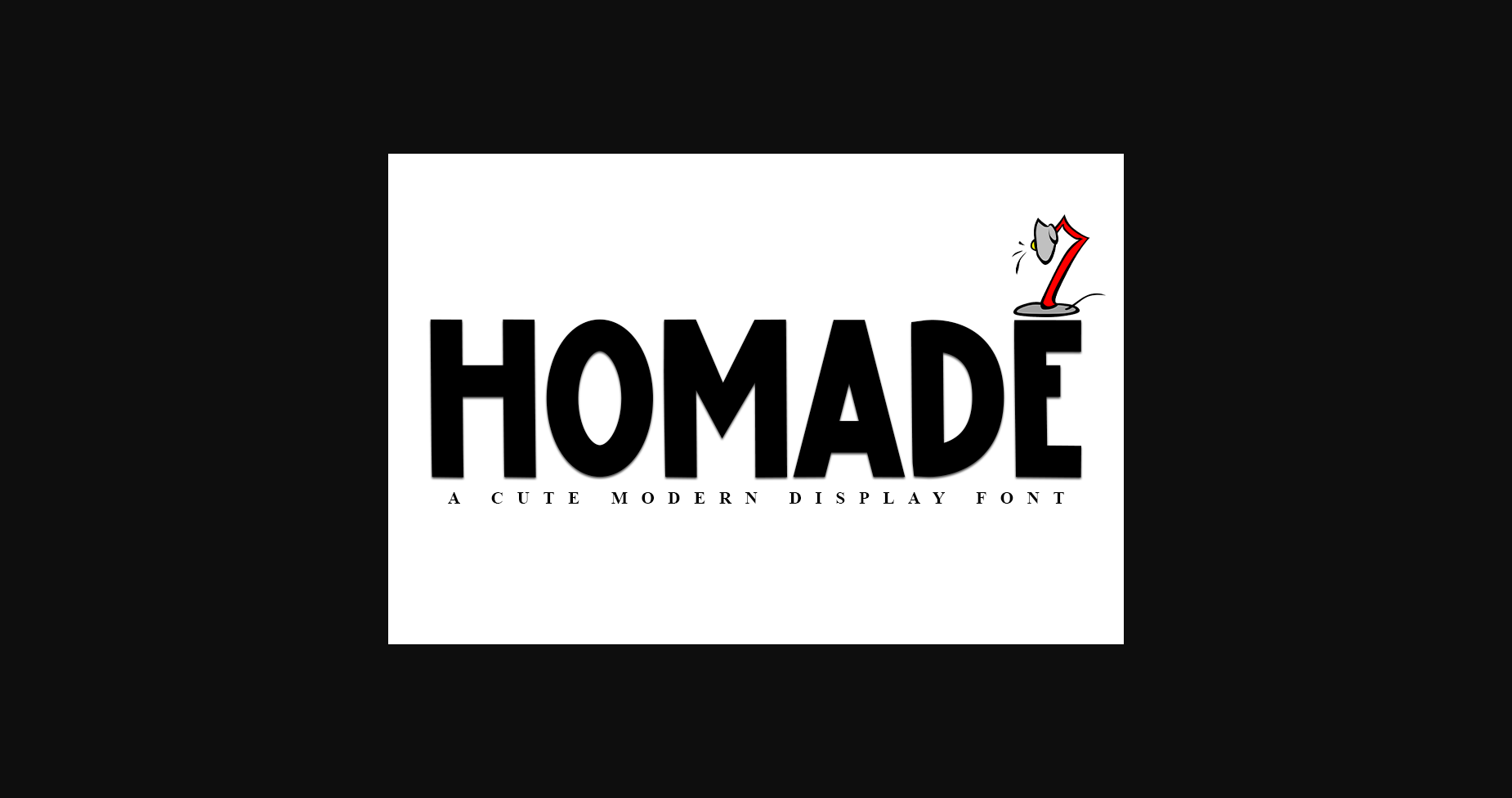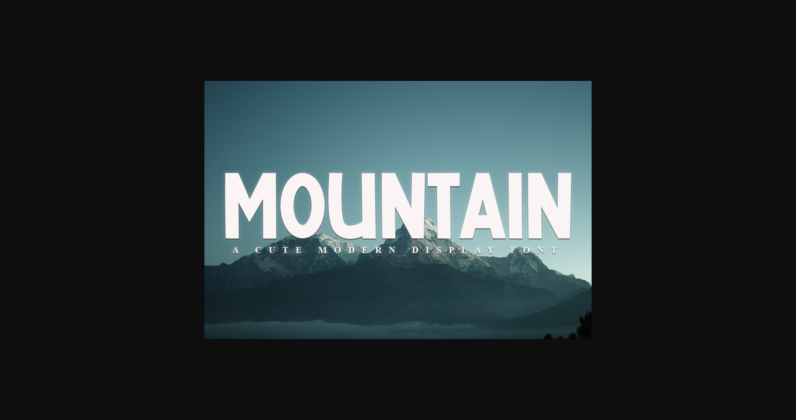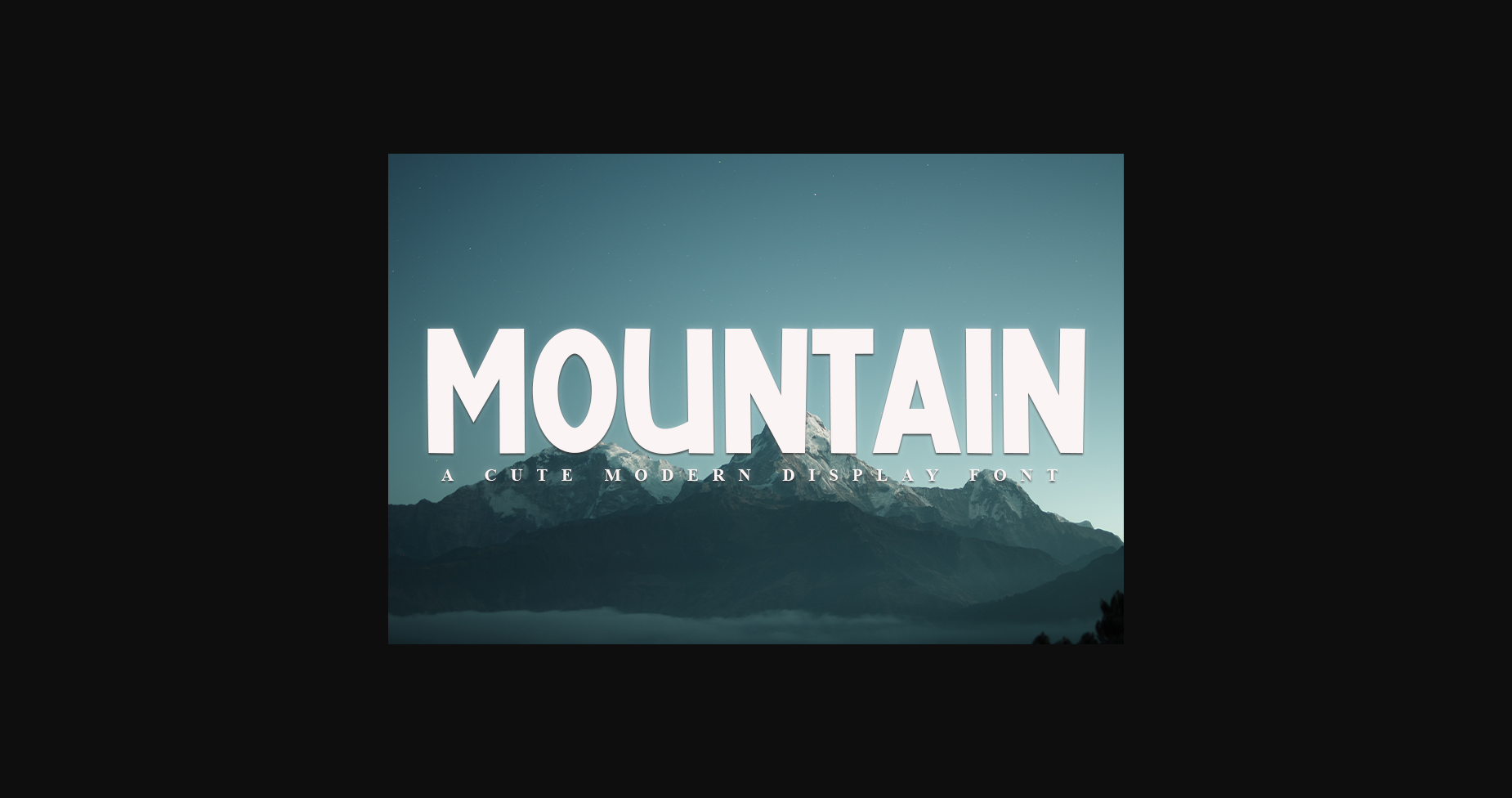
About Homade Font
Homade is a cool and modern sans display font. Whether you’re using it for crafts, digital design, presentations, or making greeting cards, this font has the potential to become your favorite go-to font, no matter the occasion.